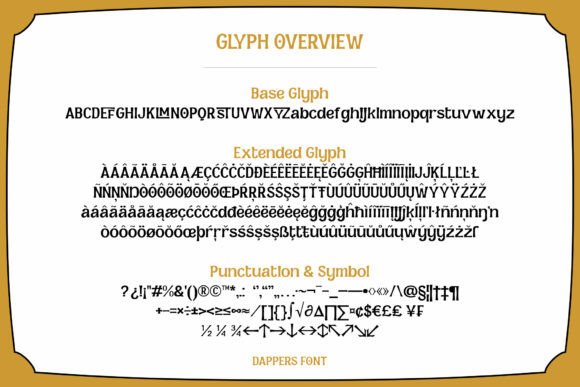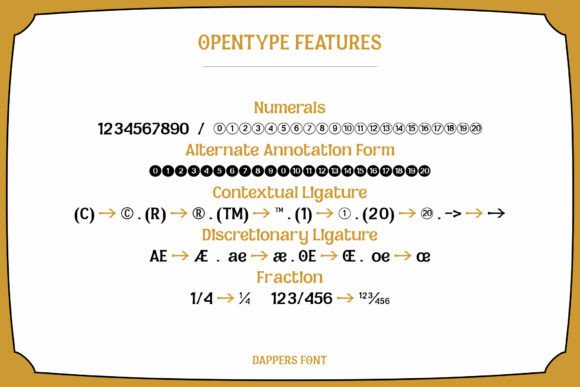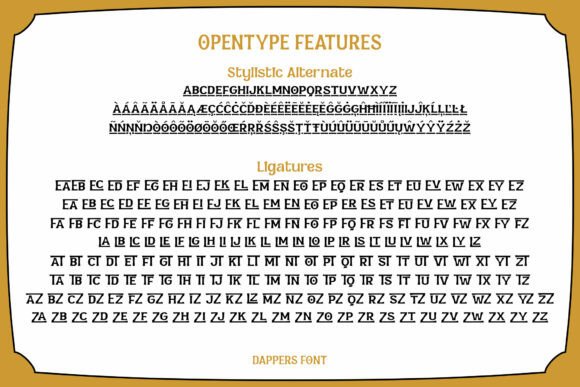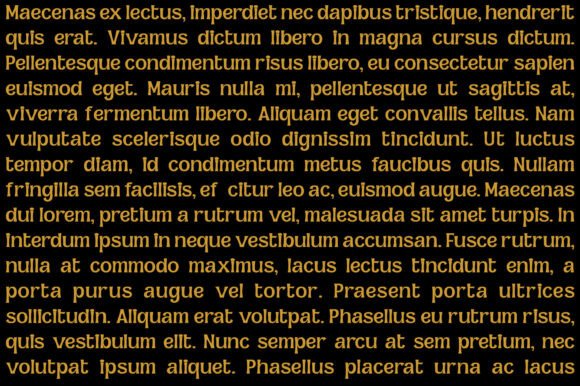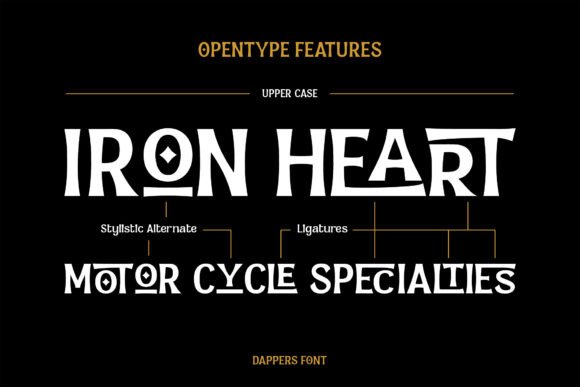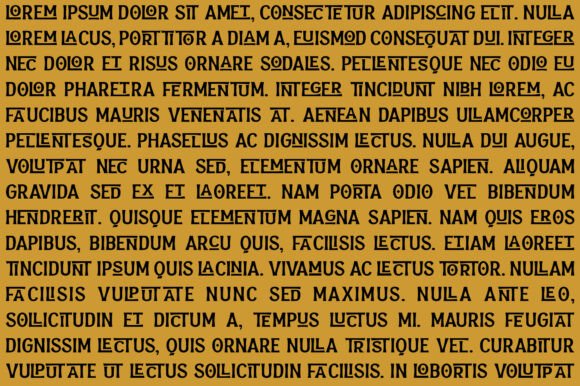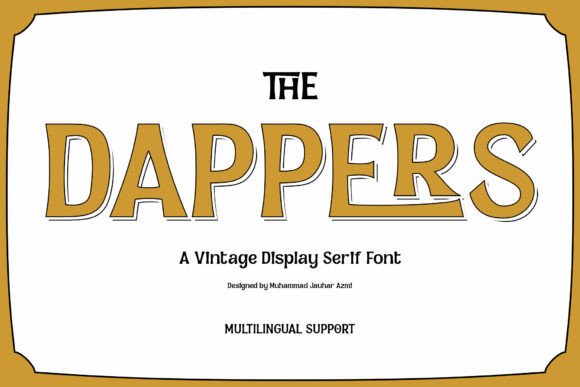
Dappers Font: Elevate Your Designs with a Timeless and Classy Touch
In the world of typography, fonts play a crucial role in conveying the tone and personality of a design. For designers and crafters seeking a stylish and sophisticated look, Dappers Font is an excellent choice. This stunning vintage font with a modern twist is perfect for creating visually appealing posters, logos, and headlines that exude a sense of elegance and refinement.
The Charm of Dappers Font
Dappers Font boasts bold and elegant serif letters that give it a classic, old-time feel. Its unique blend of vintage charm and modern sophistication makes it an ideal choice for designers looking to add a touch of timelessness to their work. The font’s serif letters are carefully crafted to provide a sense of luxury and refinement, making it perfect for high-end designs that require a classy look.
Key Features of Dappers Font
• Bold and Elegant Serif Letters: Dappers Font features bold and elegant serif letters that give it a classic, old-time feel.
• Timeless and Classy Look: The font’s unique blend of vintage charm and modern sophistication makes it perfect for designs that require a timeless and classy look.
• Versatile: Dappers Font is suitable for a wide range of design applications, including posters, logos, headlines, and more.
• Easy to Read: The font’s clear and legible design makes it easy to read, even at smaller sizes.
Design Applications for Dappers Font
Dappers Font is a versatile font that can be used in a variety of design applications. Here are some ideas to get you started:
• Posters: Create eye-catching posters for events, promotions, or advertisements using Dappers Font.
• Logos: Use Dappers Font to create a memorable and elegant logo for your brand or business.
• Headlines: Add a touch of sophistication to your headlines with Dappers Font.
• Packaging: Use Dappers Font to create elegant and eye-catching packaging for your products.
Why Choose Dappers Font?
With so many fonts available, why choose Dappers Font? Here are a few reasons why designers and crafters love this font:
• Unique and Distinctive: Dappers Font has a unique and distinctive style that sets it apart from other fonts.
• Elegant and Refined: The font’s elegant and refined design makes it perfect for high-end designs.
• High-Quality: The font is of high-quality, making it perfect for professional designs.
Tips for Using Dappers Font
Here are some tips for using Dappers Font effectively in your designs:
• Use it Sparingly: Use Dappers Font sparingly to create emphasis and add a touch of elegance to your designs.
• Pair it with Other Fonts: Pair Dappers Font with other fonts to create a unique and visually appealing design.
• Experiment with Sizes and Colors: Experiment with different sizes and colors to find the perfect combination for your design.
Dappers Font is a stylish vintage font with a modern twist that is perfect for designers and crafters seeking a timeless and classy look. Its bold and elegant serif letters give it a classic, old-time feel that is sure to elevate your designs. With its versatility, ease of use, and high-quality design, Dappers Font is an excellent choice for a wide range of design applications.